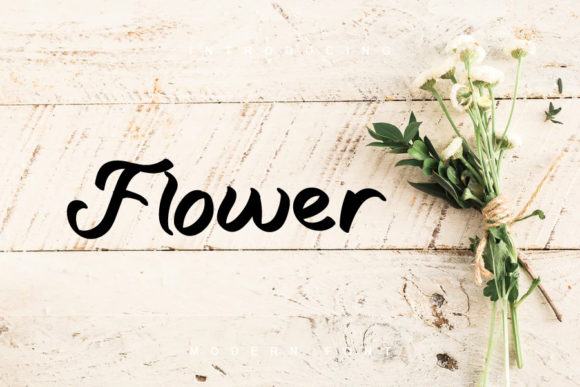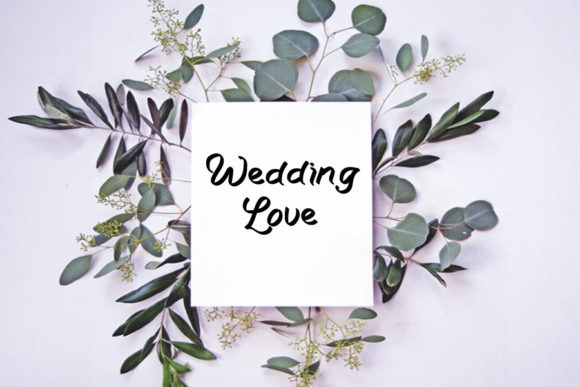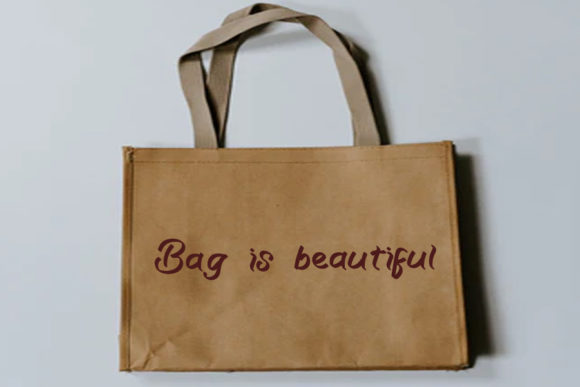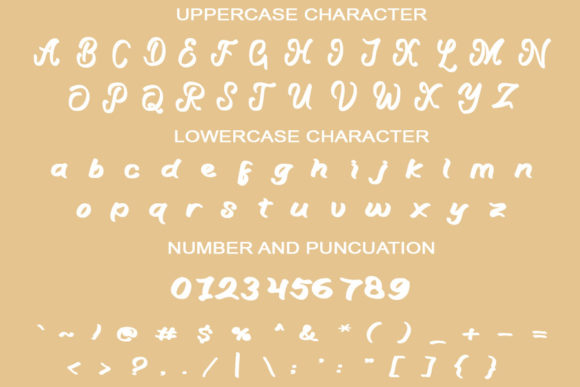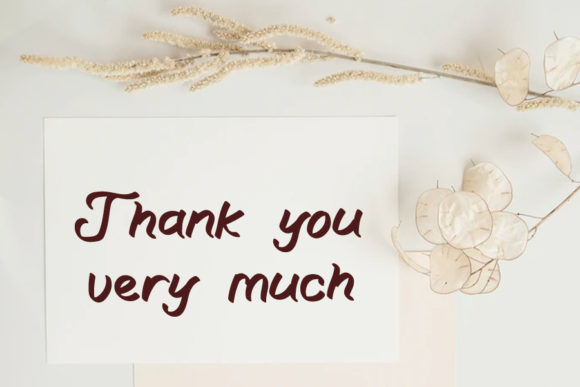
Introduction to Liukhtin is Back Font
Liukhtin is Back is a lovely script font featuring charming, playful characters that seem to dance along the baseline.
Add this font to your most creative ideas, and notice how it makes them stand out .
Key Features of Liukhtin is Back Font
Why Choose Liukhtin is Back Font?
Liukhtin is Back Font offers exceptional quality and versatility, making it a valuable addition to your design toolkit. Whether you’re creating for personal projects or commercial use, Liukhtin is Back Font delivers professional results.